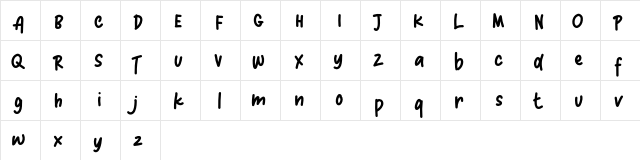
Candle Light FREE Regular
| Foundry | Inspiratype |
| Designer | Inspiratype |
Design Context for Candle Light FREE Typeface
Candle Light FREE is a composed and adaptable typeface that performs quietly and consistently across a wide range of design contexts. Its slender proportions lend an understated elegance to any composition.
Pro Tip: Use Candle Light FREE in both headline and body roles to test its range before committing to a single application.